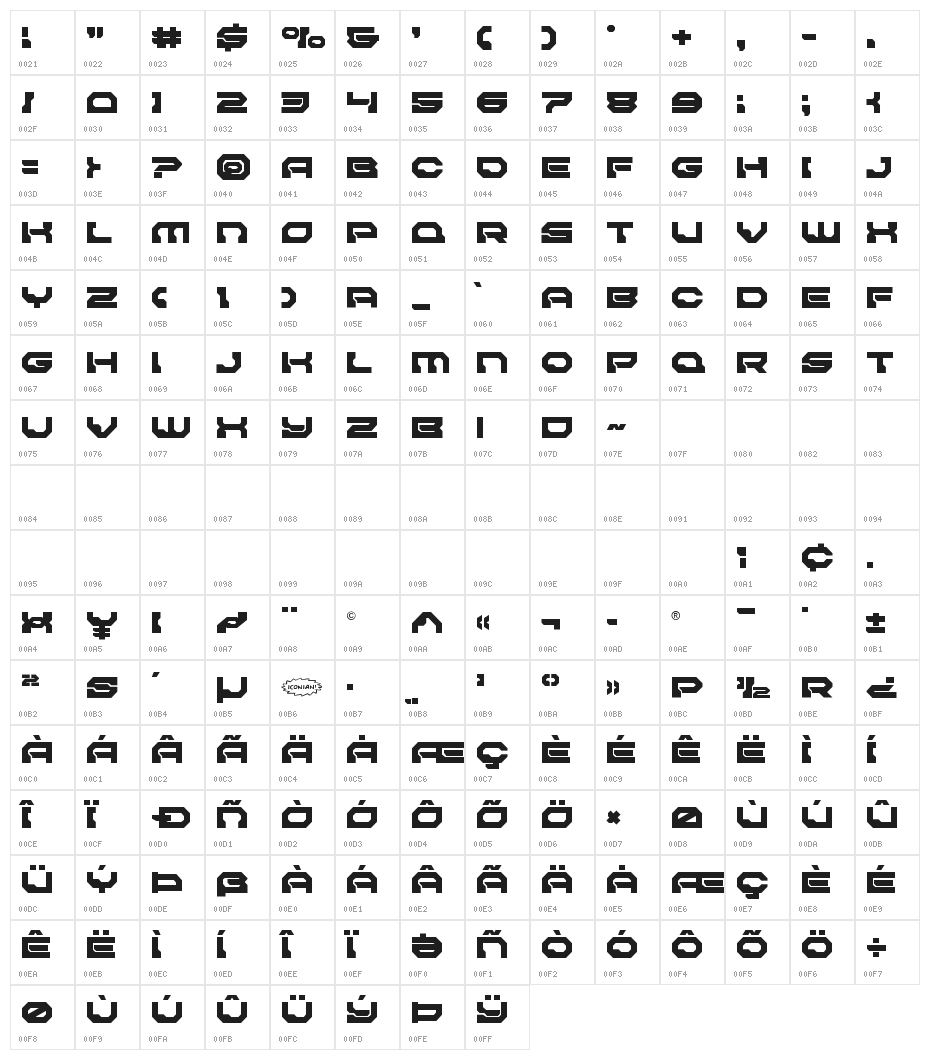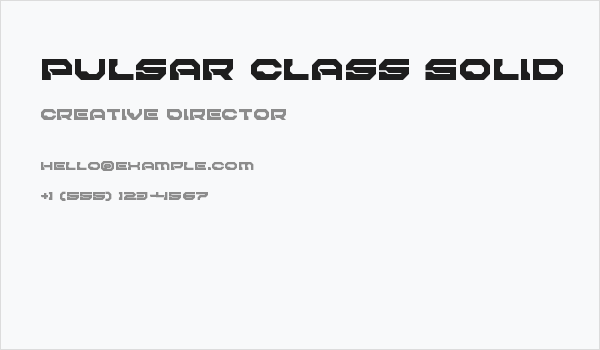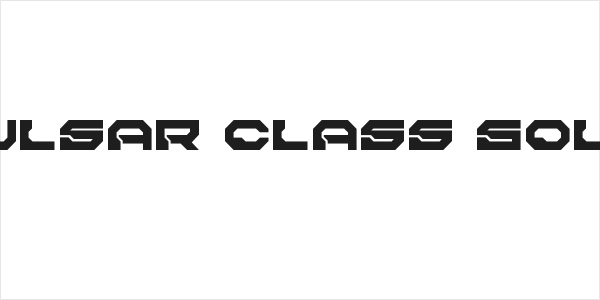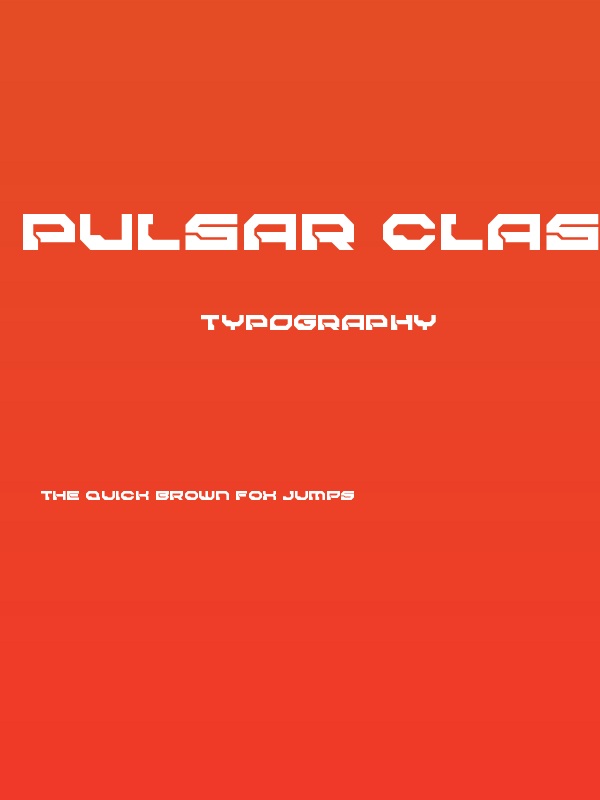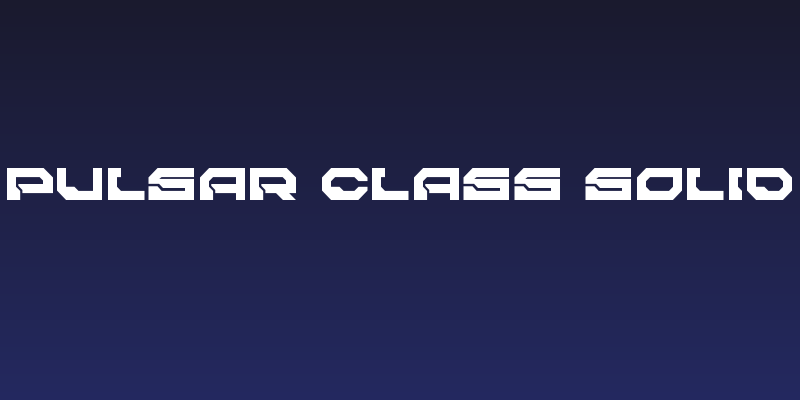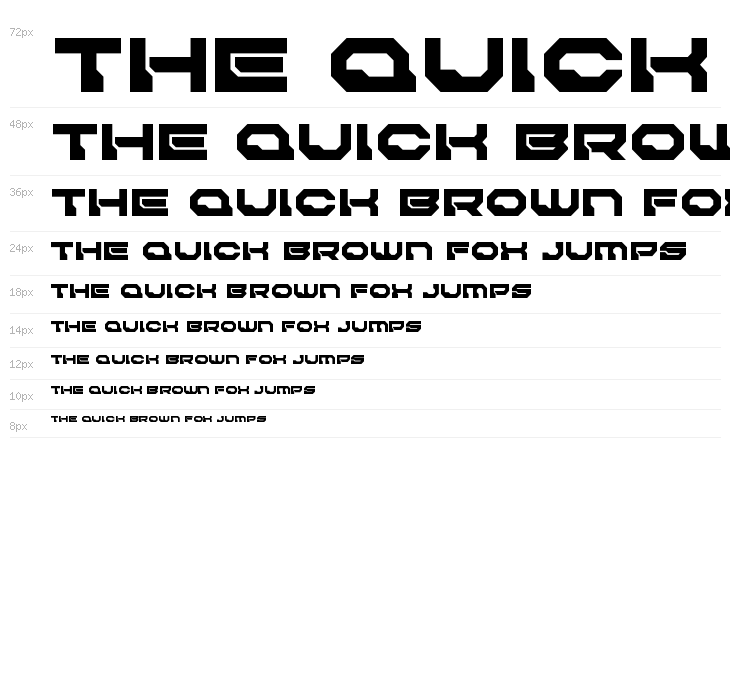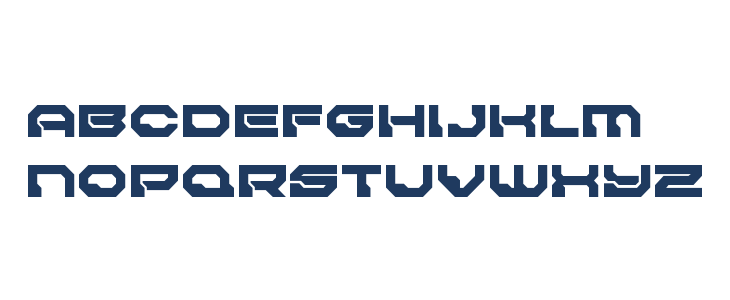
Pulsar Class Solid Font
Pulsar Class Solid Description
This font features a bold, futuristic design with geometric shapes and sharp angles. The characters are constructed with solid, block-like forms that give a sense of strength and modernity. The uppercase and lowercase letters maintain a consistent style, emphasizing uniformity and precision. The numerals and special characters follow the same design principles, ensuring a cohesive look across all elements. This font's distinct appearance makes it ideal for projects that require a strong visual impact.
| Proposed Projects | Ideal for sci-fi themed designs, technology branding, video game titles, and futuristic posters. |